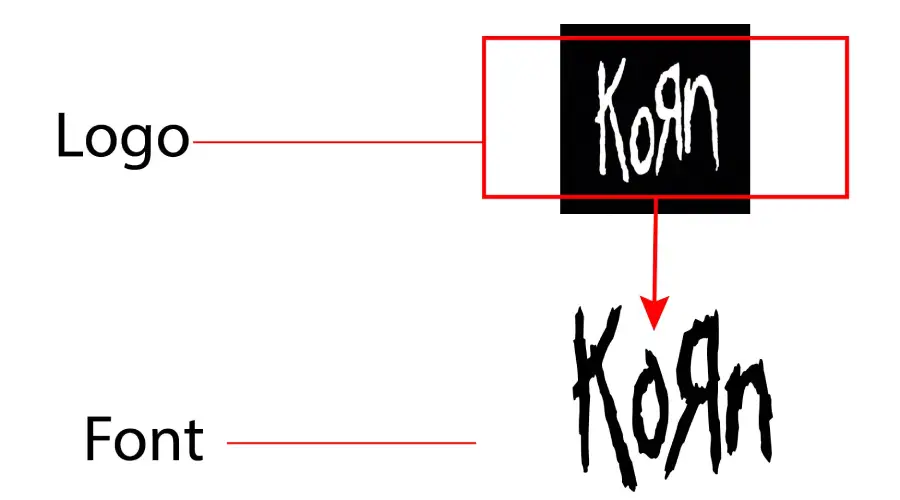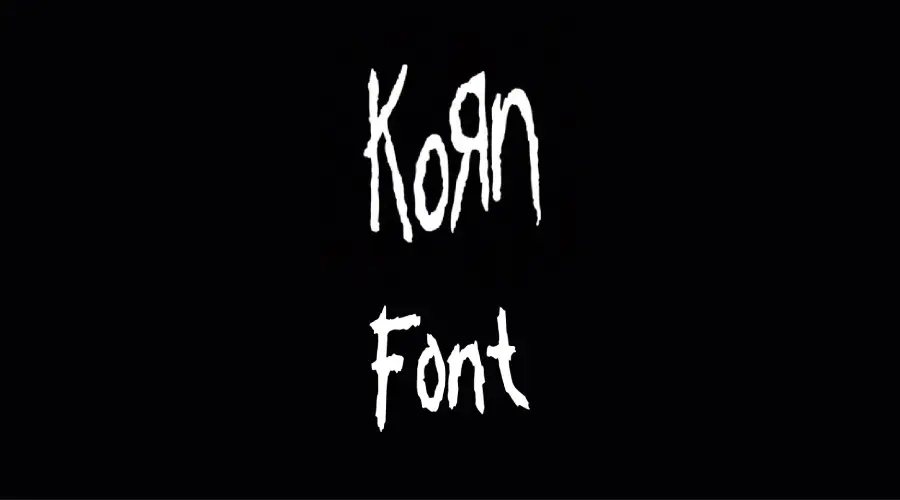
Korn Font
Korn font used in the Korn logo is custom-made. However, the Astigmatic One Eye replicated the font and named it the Kornopucia font. You can download this font for free! Now, let’s talk about the Korn band.
Korn logo vs Kornupocia Font Similarity Example
Korn is an American nu-metal band formed in 1993 in Bakersfield, California. They are considered pioneers of the nu-metal genre, which combines elements of heavy metal, alternative rock, hip-hop, and industrial music. Korn has sold over 40 million albums worldwide and has won two Grammy Awards and two MTV Video Music Awards.
The Korn logo was created by Jonathan Davis, who was inspired by graffiti and street art. He wanted to create a simple, memorable, and recognizable logo. He experimented with different fonts and styles and eventually came up with the idea of flipping the “R” backward.
Korn logo vs Kornupocia Font Similarity Example
Kornucopia is a distinctive and impactful font that reflects the unique identity of the Korn band. The font can convey a sense of energy, dynamism, creativity, and a touch of rebelliousness and edginess. Its effectiveness in creating appealing text graphics makes it a valuable choice for various design projects.